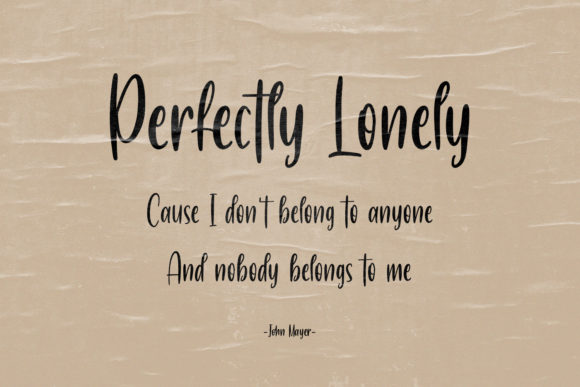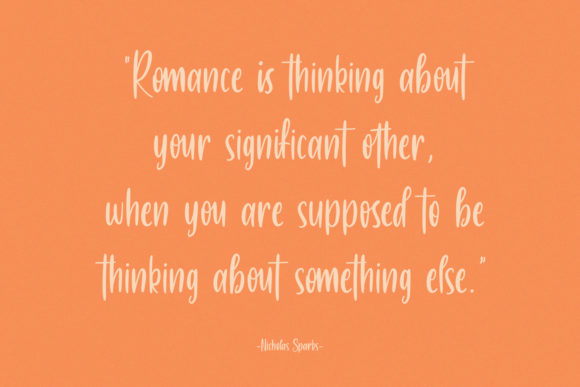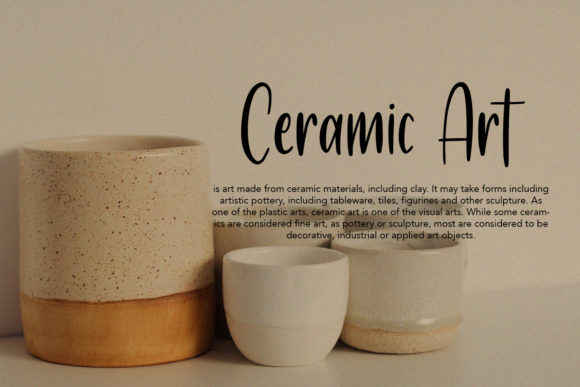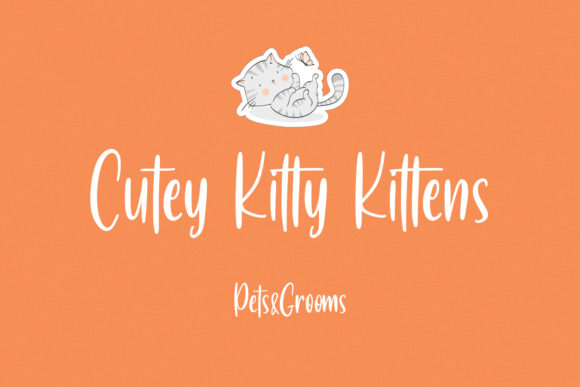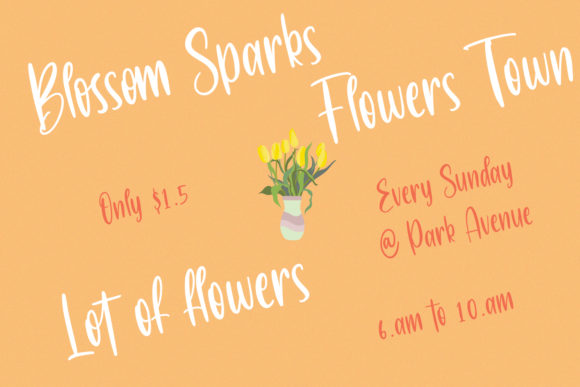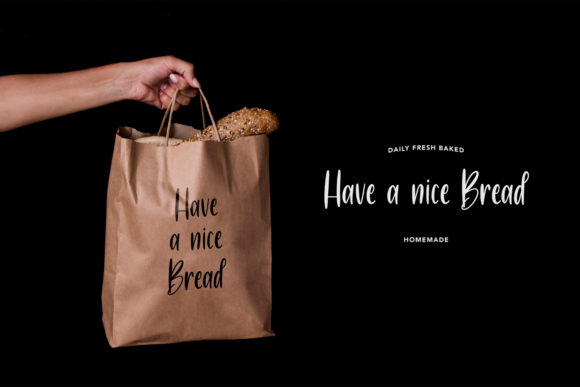
The Perfect Touch of Whimsy: Unlocking the Power of BlissHearts Font
As a designer, there’s nothing quite like the thrill of bringing a new project to life. The blank canvas, the endless possibilities – it’s a creative high like no other. And yet, sometimes, it’s the smallest details that can make all the difference. A misplaced comma, a wonky kerning, or a font that just doesn’t quite fit the vibe… it’s enough to drive even the most seasoned designer to distraction.
Enter BlissHearts Font, the perfect solution for adding a touch of authentic handcrafted charm to your designs. With its unique blend of elegance and whimsy, this font is perfectly suited to a wide range of applications, from signature and stationery to logo and typography quotes. Whether you’re looking to add a touch of personality to your branding or create a sense of wonder and enchantment in your designs, BlissHearts Font is the perfect tool for the job.
BlissHearts Font Key Features
- Unique Characteristics: BlissHearts Font features a unique blend of cursive and script styles, with intricate details and flourishes that add a touch of elegance to any design.
- Character Set: The font includes a comprehensive character set, covering Latin, Greek, and Cyrillic alphabets, as well as a range of punctuation marks and symbols.
- Font Style: BlissHearts Font comes in two styles: Regular and Bold, allowing users to choose the perfect weight for their design needs.
BlissHearts Font Review
As a designer, I’ve had the chance to work with a lot of fonts, but BlissHearts stands out in its own unique way. ✨ The whimsical feel of this font is perfect for projects that require a touch of playfulness and elegance. The curved lines and rounded shapes create a sense of warmth and approachability that’s hard to find in other fonts.
- ✨ Unique and elegant design that sets it apart from other fonts
- Perfect for projects that require a touch of whimsy and playfulness
- Works well for titles, headings, and body text
- ⚠️ Limited character set, may not be suitable for projects that require a wide range of characters
- ⚠️ Can be difficult to read at small font sizes
Overall, I’d say BlissHearts is a great choice for designers who want to add a touch of personality to their projects. While it may have some limitations, its unique design and elegance make it a great addition to any design toolkit.
Tips for Getting the Most Out of BlissHearts Font
Use BlissHearts Font to create whimsical and playful designs.
Pair the font with bold and bright colors to create a visually appealing design.
Experiment with different font sizes and styles to add depth and interest to your design.
Use BlissHearts Font for:
Children’s party invitations and decorations
Blog and social media graphics
Printable art and wall decor
Alternatives to BlissHearts Font for Designers
The Great Vibes Font is a modern script font that is perfect for creating a sense of playfulness and elegance. It’s ideal for use in logos, branding, and advertising materials where a touch of whimsy is needed.
Compared to BlissHearts Font, Great Vibes Font has a more refined and sophisticated feel, making it suitable for a wider range of design projects. While BlissHearts Font has a more childlike quality, Great Vibes Font is better suited for more mature audiences.
The Lobster Font is a bold and eye-catching script font that is perfect for use in headlines and titles. It’s ideal for designers who want to create a sense of drama and energy in their designs.
The BlissHearts Font is designed to be versatile and legible at various font sizes. For optimal readability, we recommend using font sizes between 12pt and 24pt. However, feel free to experiment with different font sizes to achieve the desired visual effect.